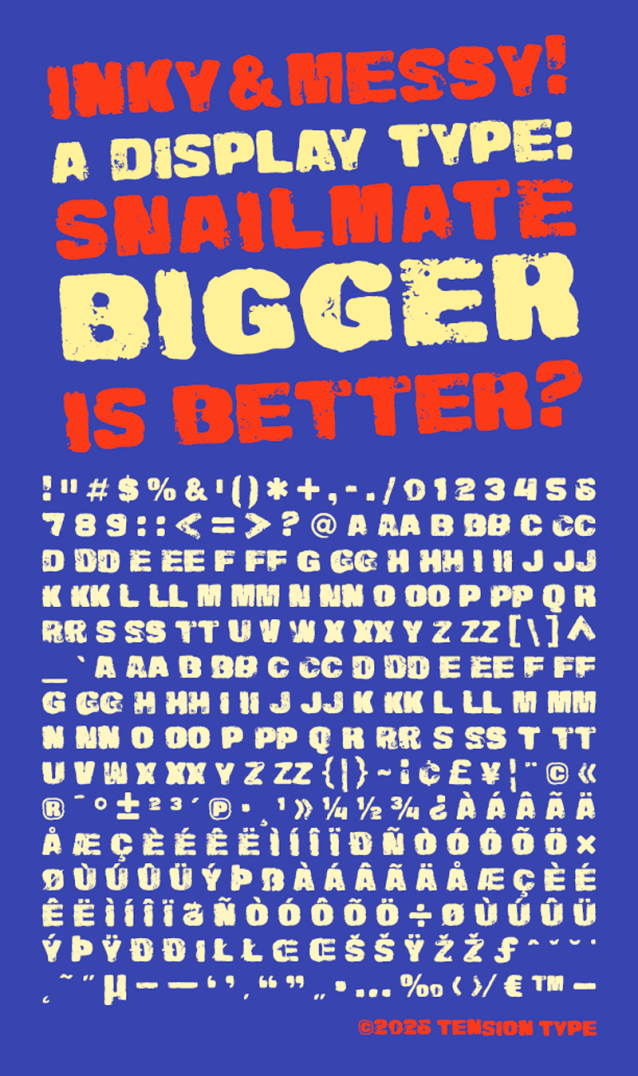
Snailmate Font
Snailmate Font is a simple and modern display font suitable for quotes, logos, headings, titles, and many more. Use it on any of your creative projects, and your designs will become outstanding!